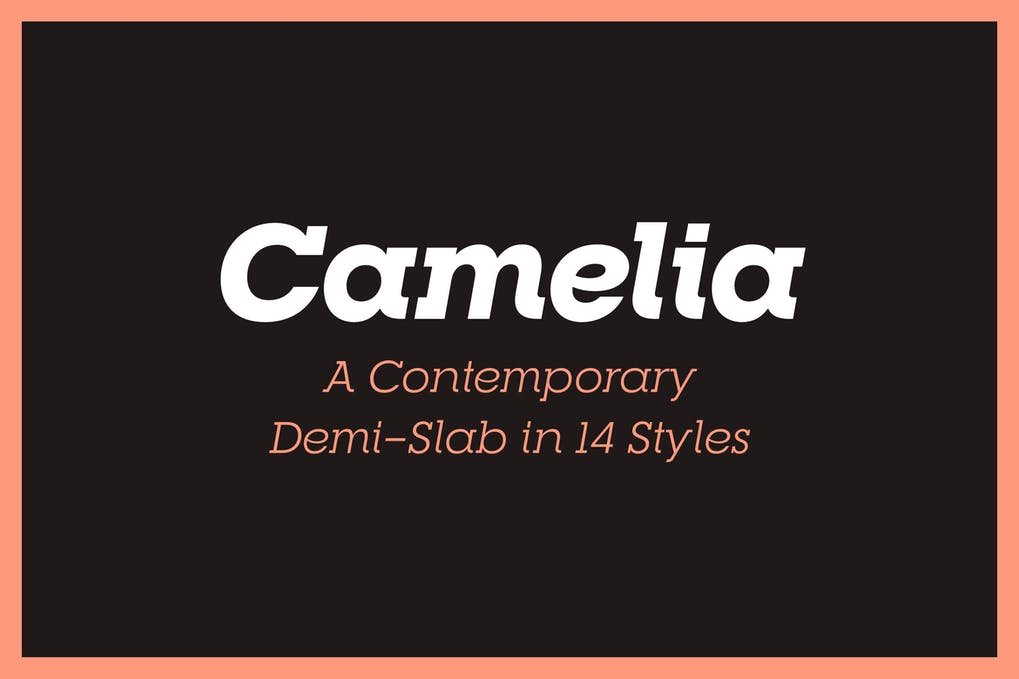
RNS Camelia Font is a demi–slab display type family with reversed strokes to achieve an unexpected look and rhythm. Was designed and optimized for use in large sizes. It is inspired by the geometric typefaces of the 1920s and the Egyptians of the 1930s. An emphasis on circular and rectangular shapes gives it a particular identity.
RNS Camelia weights and style include:
- Thin
- Thin Italic
- Light
- Light Italic
- Regular
- Italic
- Medium
- Medium Italic
- Bold
- Bold Italic
- Extra Bold
- Extra Bold Italic
- Black
- Black Italic